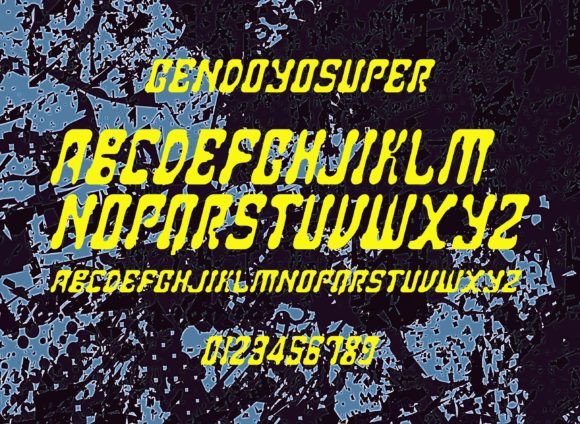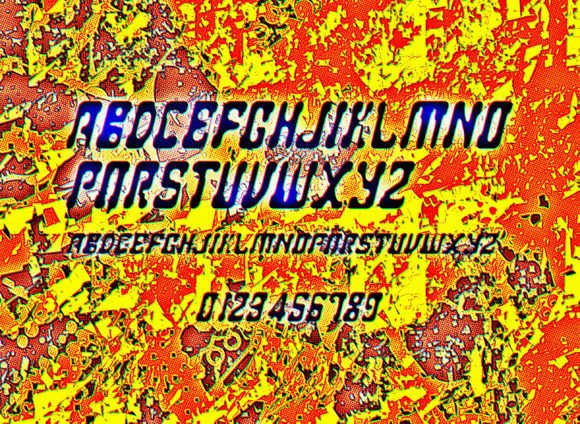
Gendoyosuper Font: The Ultimate Display Font for Bold and Daring Typography
In the world of typography, fonts play a crucial role in conveying the tone and personality of a brand or design. For designers and crafters looking for a bold and daring font to make their projects stand out, Gendoyosuper Font is an excellent choice. This cool and unique display font is designed to add a strong and masculine touch to any design, making it perfect for projects that require a confident and eye-catching typography.
What is Gendoyosuper Font?
Gendoyosuper Font is a display font that boasts a distinctive and rugged appearance. Its strong and masculine look is achieved through its bold lines, sharp edges, and sturdy structure. This font is not only visually striking but also highly versatile, making it suitable for a wide range of design applications, from posters and flyers to logos and branding materials.
Key Features of Gendoyosuper Font
- Strong and Masculine Look: Gendoyosuper Font exudes a sense of confidence and boldness, making it perfect for designs that require a strong and daring typography.
- Unique and Cool Design: The font’s distinctive design sets it apart from other display fonts, making it an excellent choice for designers looking for something fresh and exciting.
- Highly Versatile: Gendoyosuper Font can be used for a wide range of design applications, from print materials to digital designs.
- Easily Readable: Despite its bold and rugged appearance, Gendoyosuper Font remains easily readable, making it perfect for headlines, titles, and short texts.
Uses of Gendoyosuper Font
Gendoyosuper Font is an incredibly versatile font that can be used for various design projects, including:
- Posters and Flyers: Add a bold and eye-catching touch to your posters and flyers with Gendoyosuper Font.
- Logos and Branding: Create a strong and memorable brand identity with Gendoyosuper Font.
- Social Media Graphics: Make your social media graphics stand out with the bold and daring look of Gendoyosuper Font.
- Packaging Design: Add a rugged and masculine touch to your packaging design with Gendoyosuper Font.
Why Choose Gendoyosuper Font?
With so many fonts available, why choose Gendoyosuper Font? Here are a few reasons:
- Unique Design: Gendoyosuper Font offers a fresh and exciting design that sets it apart from other display fonts.
- High-Quality: The font is designed with high-quality and precision, ensuring that it looks great in any design application.
- Easily Customizable: Gendoyosuper Font can be easily customized to fit your design needs, making it a versatile choice for designers.
| Font Name | Gendoyosuper Font |
| Author | yogart |
In conclusion, Gendoyosuper Font is an excellent choice for designers and crafters looking for a bold and daring display font. Its strong and masculine look, unique design, and high versatility make it perfect for a wide range of design applications. Whether you’re creating posters, logos, or social media graphics, Gendoyosuper Font is sure to make your designs stand out.